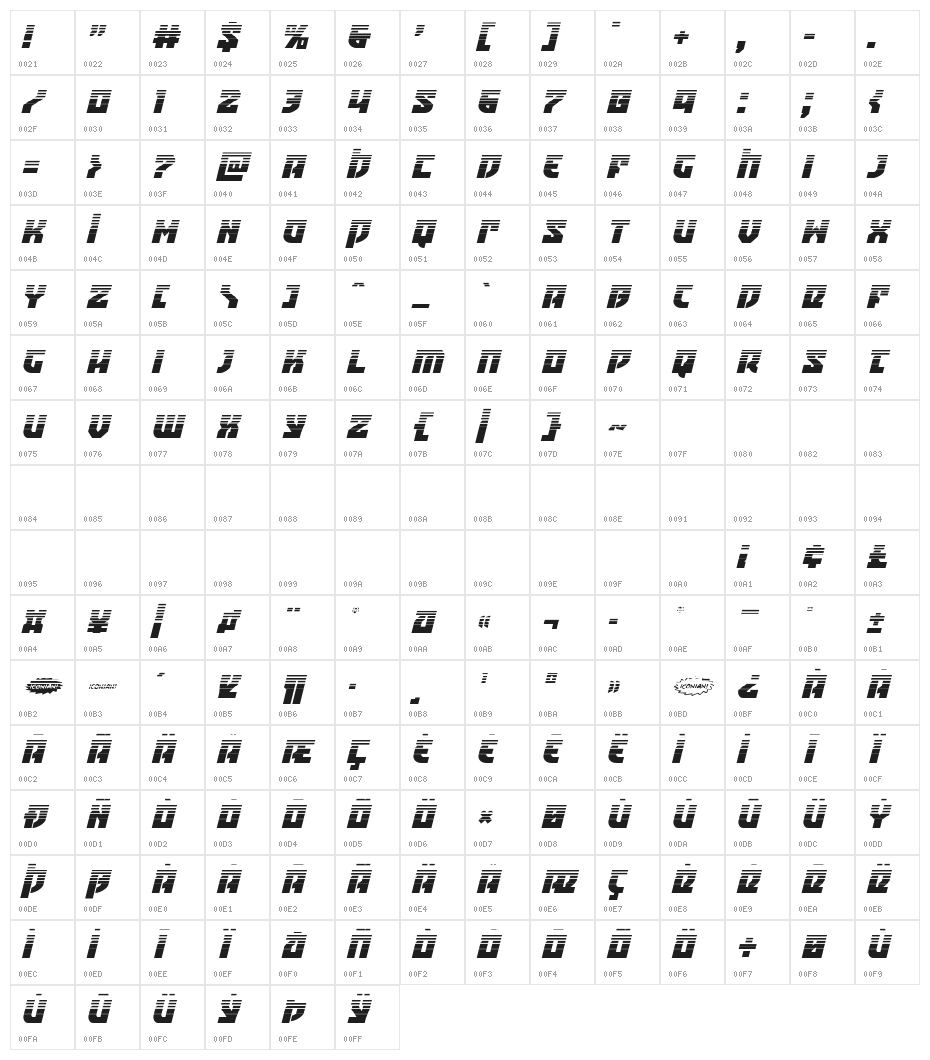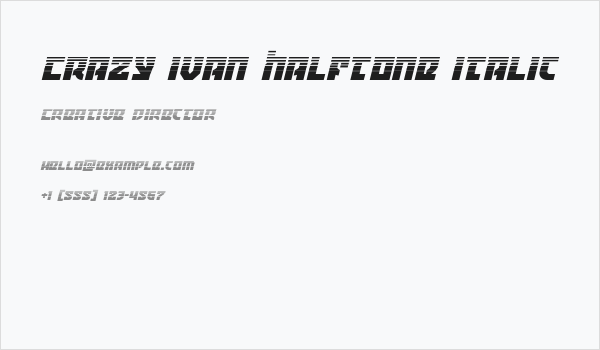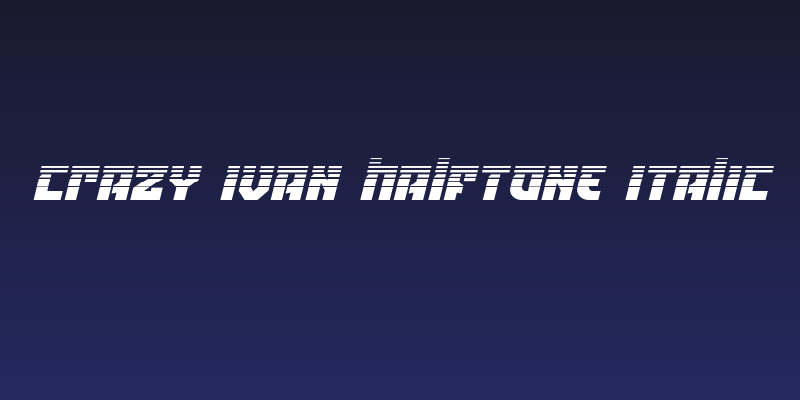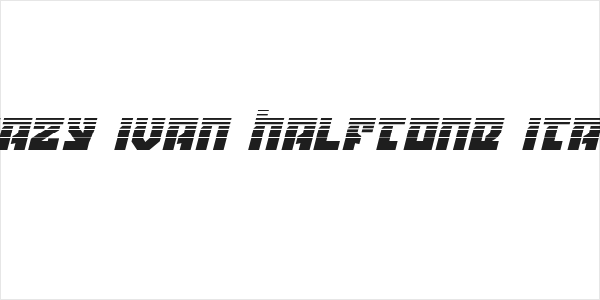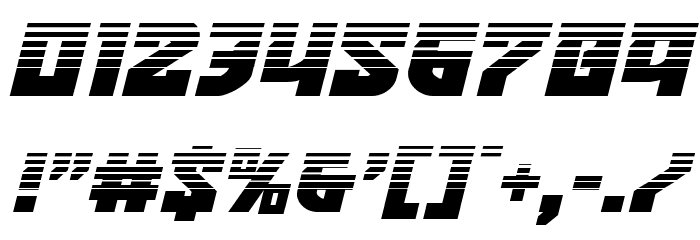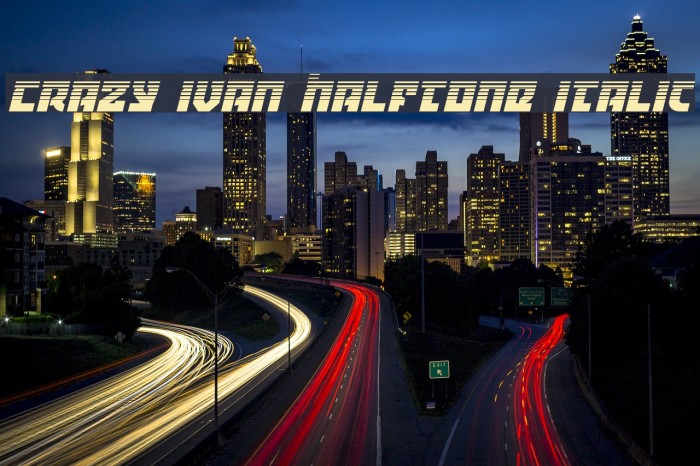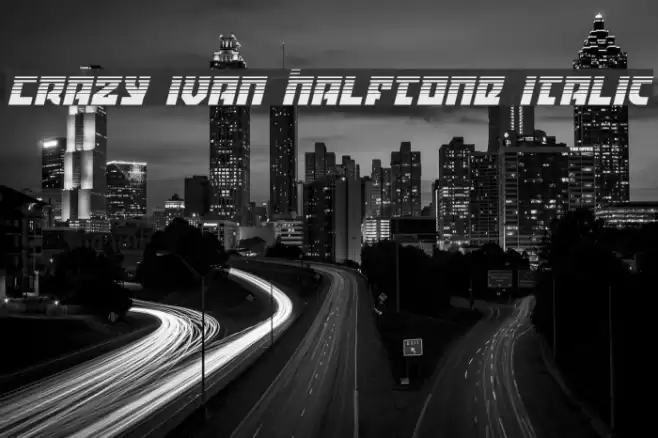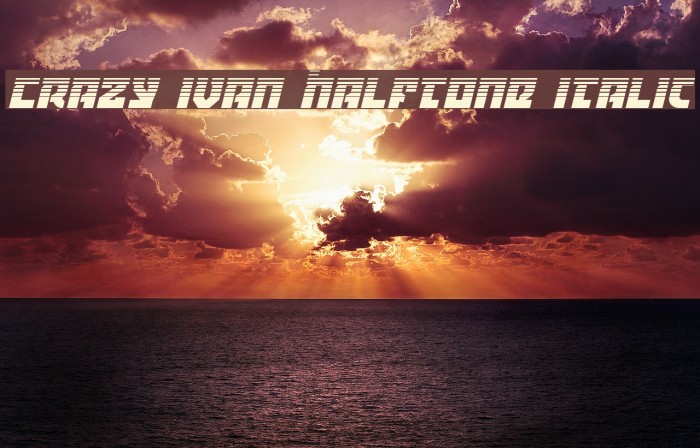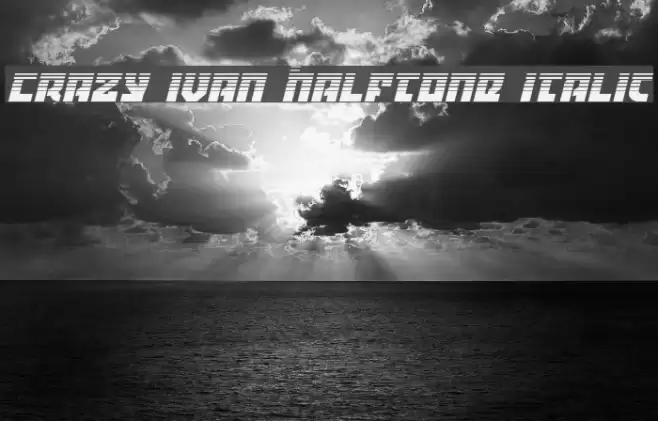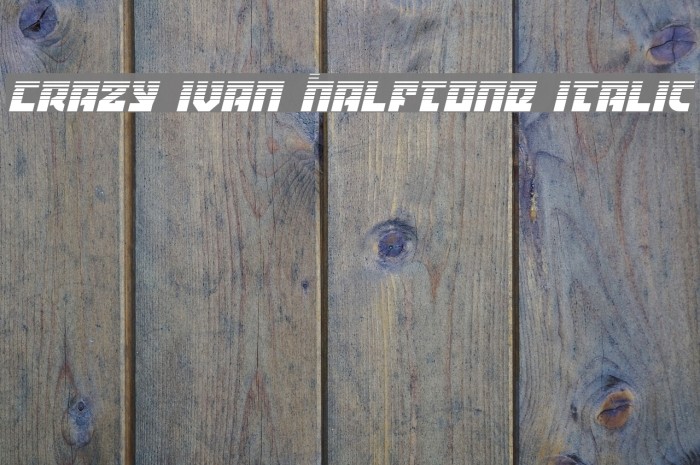
Crazy Ivan Halftone Italic Font
Crazy Ivan Halftone Italic Description
This font features a bold, italicized style with a unique halftone effect that gives it a dynamic and futuristic appearance. The characters are designed with horizontal stripes that create a sense of movement and energy. The uppercase and lowercase letters maintain a consistent style, with sharp angles and a slightly condensed form. The numbers and special characters follow the same design principles, ensuring uniformity across the entire typeface. This font is ideal for projects that require a modern and edgy look, such as technology branding, sports team logos, or sci-fi themed designs.
| Proposed Projects | Ideal for technology branding, sports logos, sci-fi themes, and edgy graphic designs. |